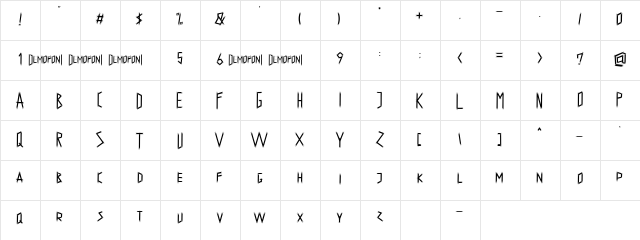
Undergod Regular
| Designer | Bringtype.studio |
Design Context for Undergod Typeface
Undergod is a composed and adaptable typeface that performs quietly and consistently across a wide range of design contexts.